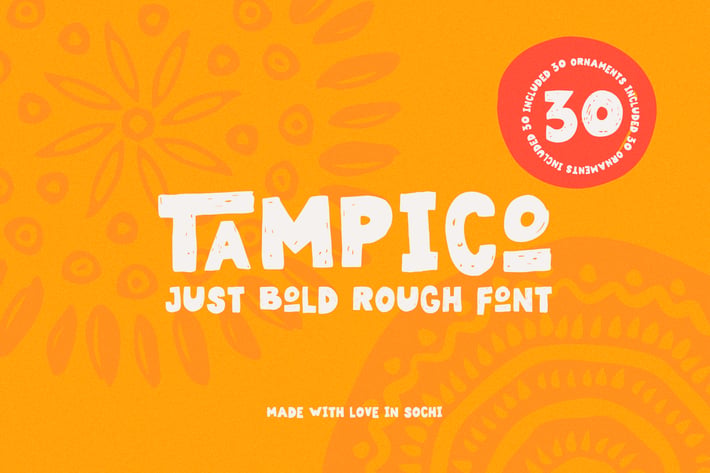
Tampico Typeface
Tampico Typeface is a new font with Rough version, which includes 80+ glyphs and alternative characters. The font looks great on various packages, goods with food. You can also use it to create logos, shortcuts and other design elements. With the font in the kit are kraft logos.
Accents (Multilingual characters)
Stylistic Alternates